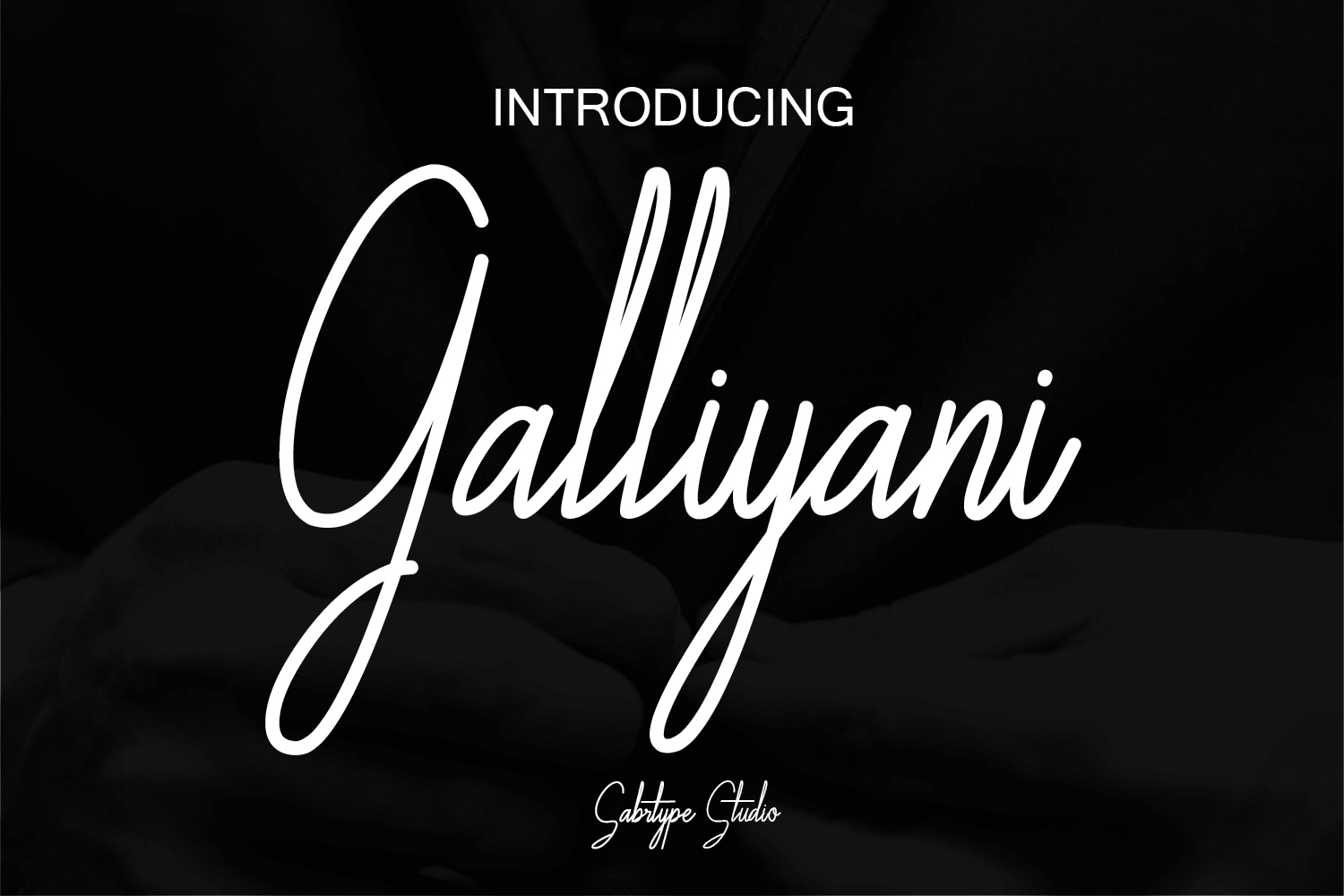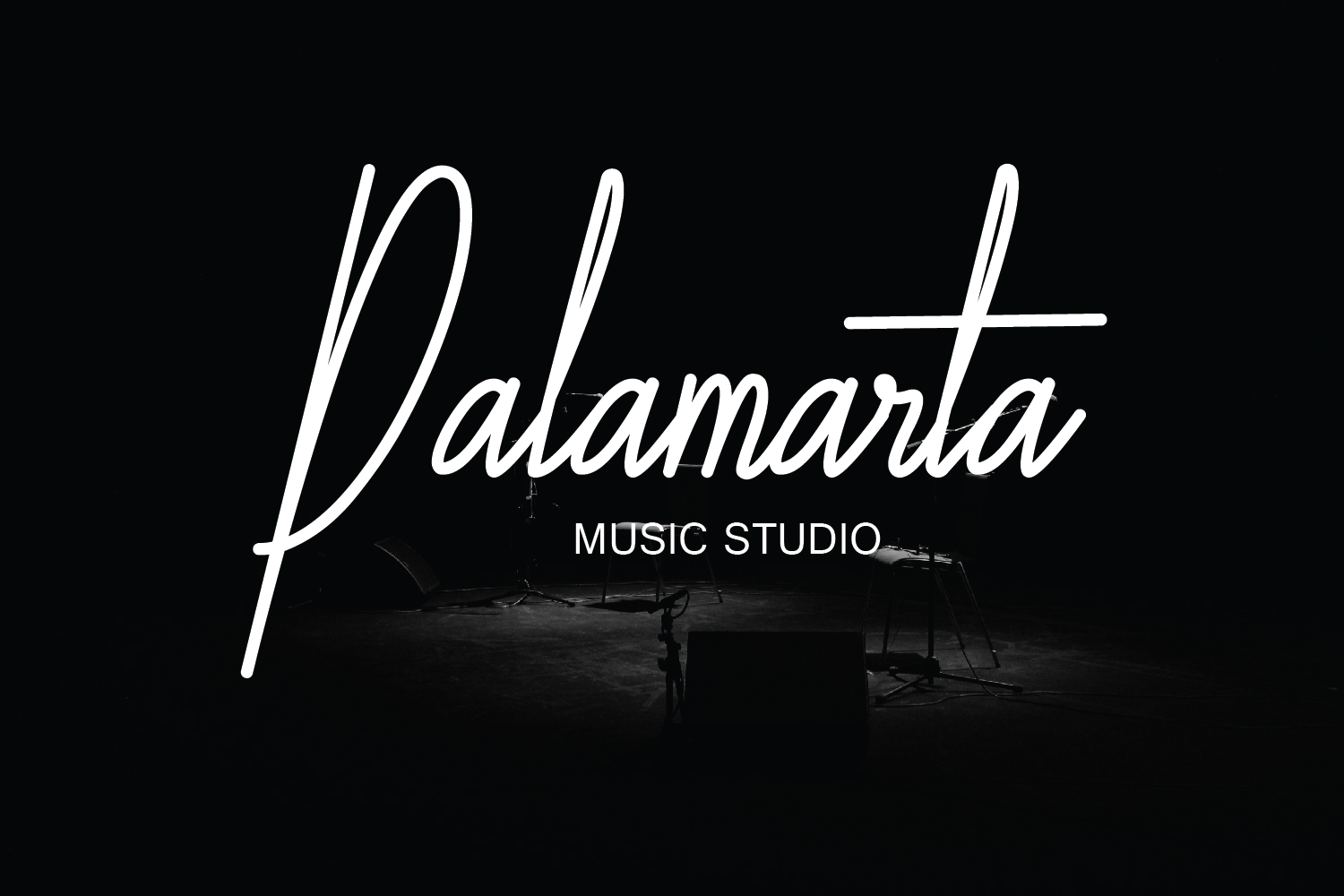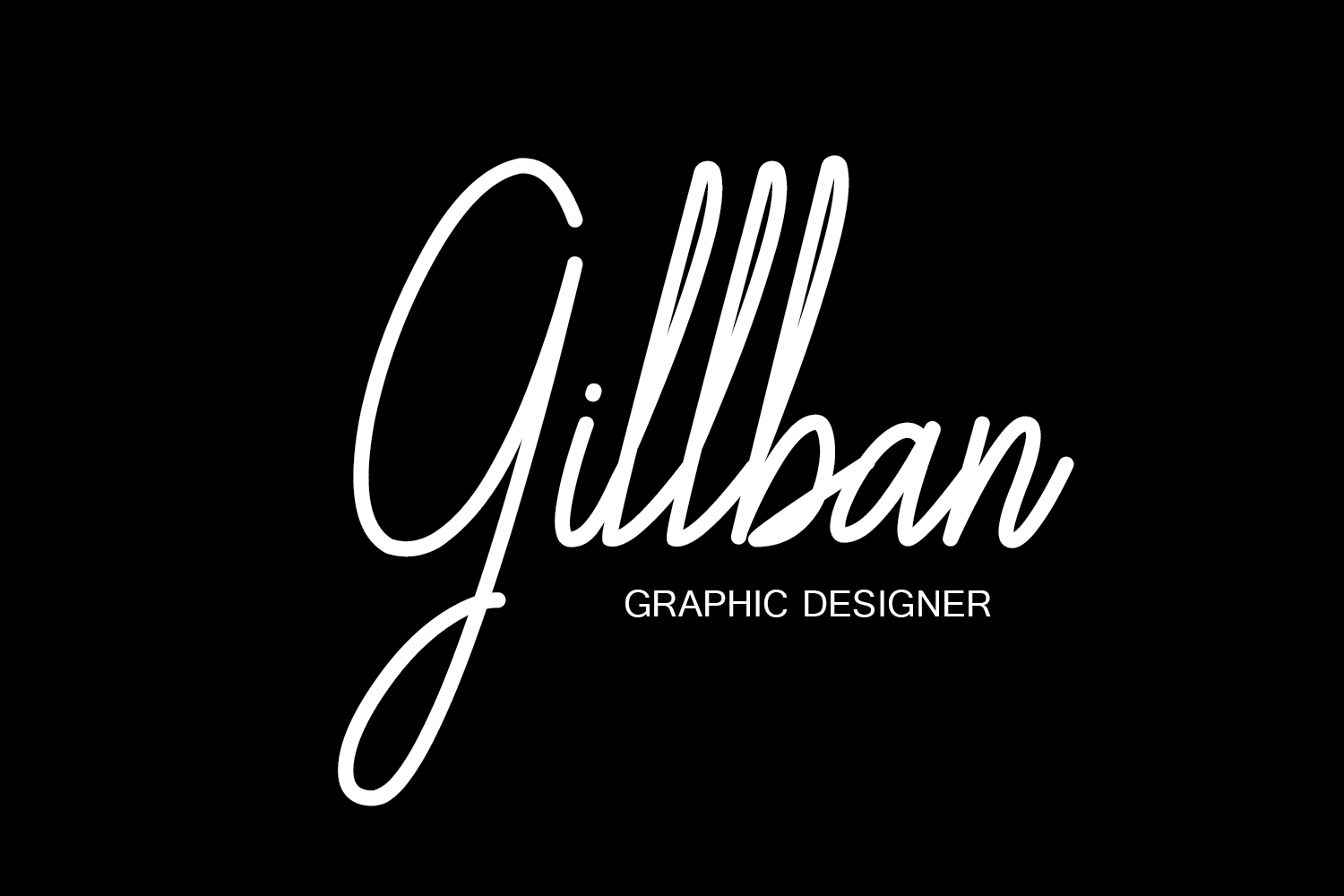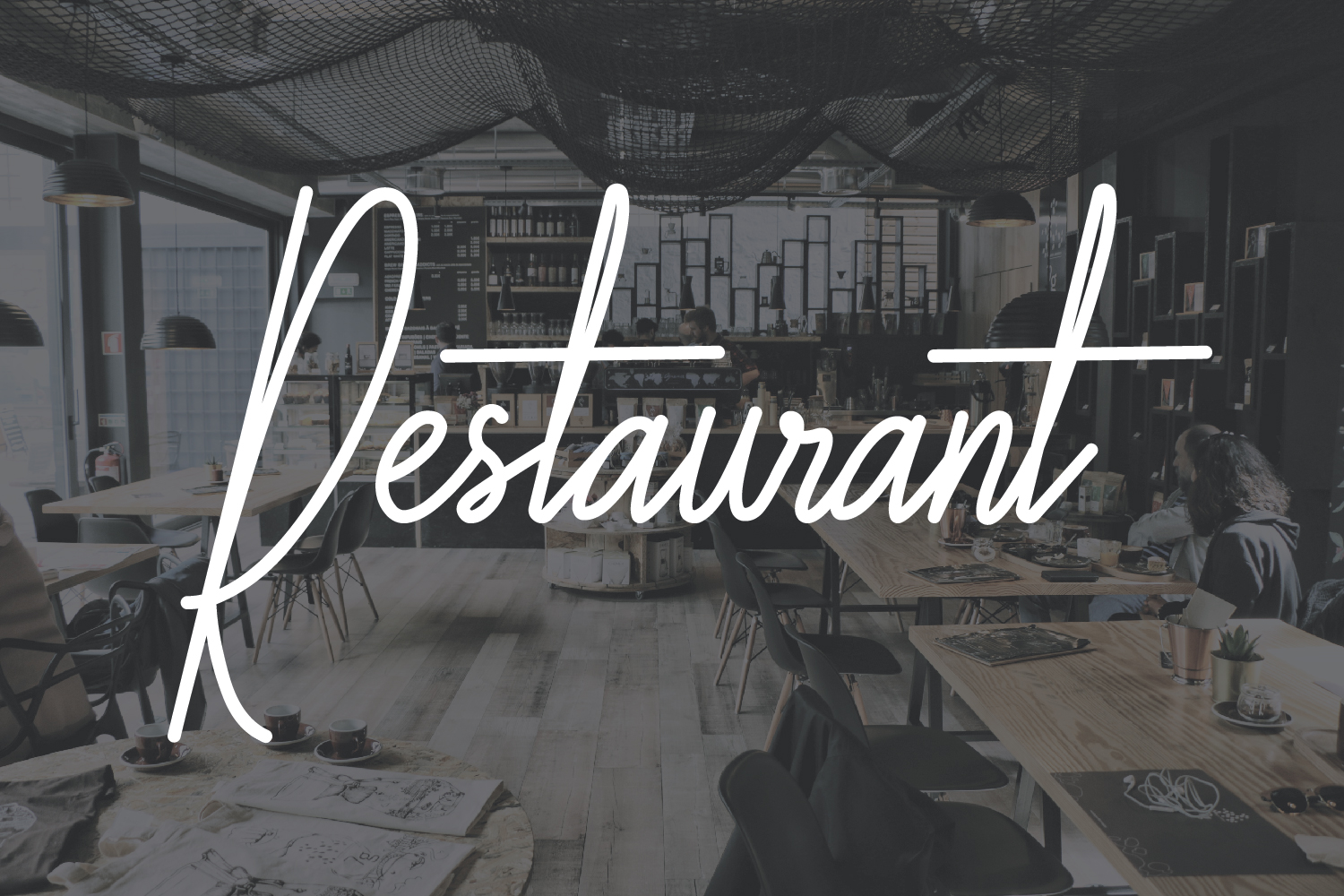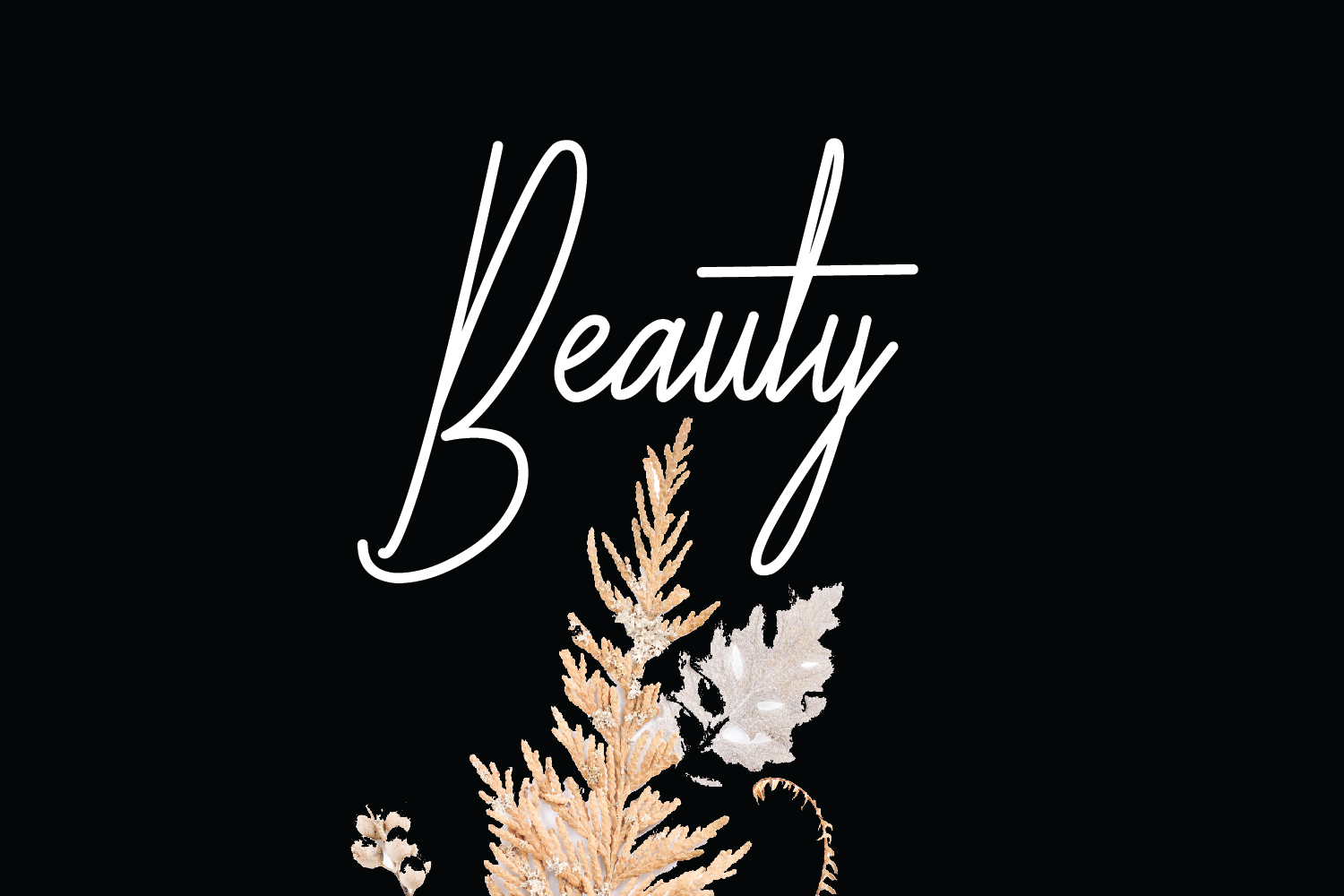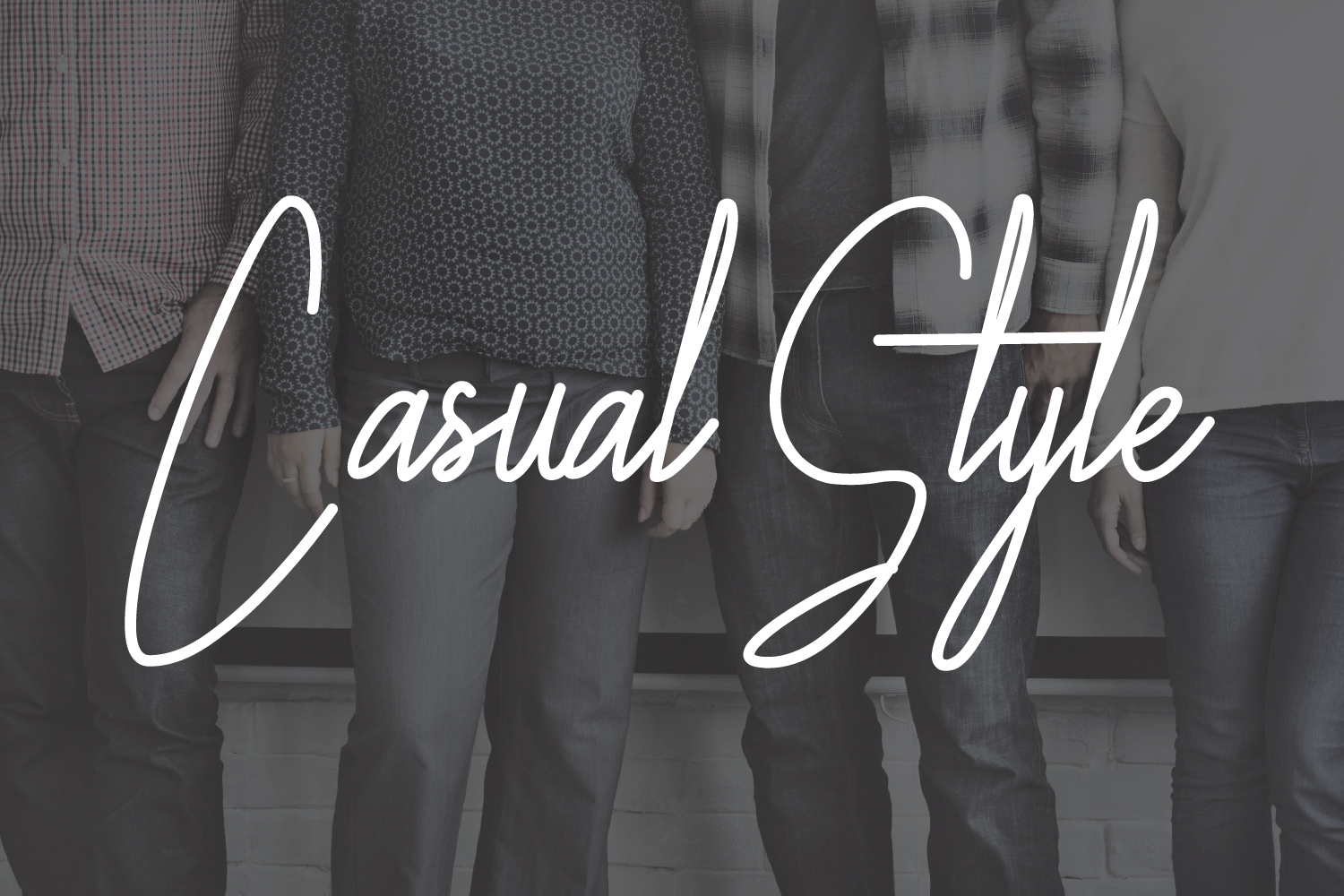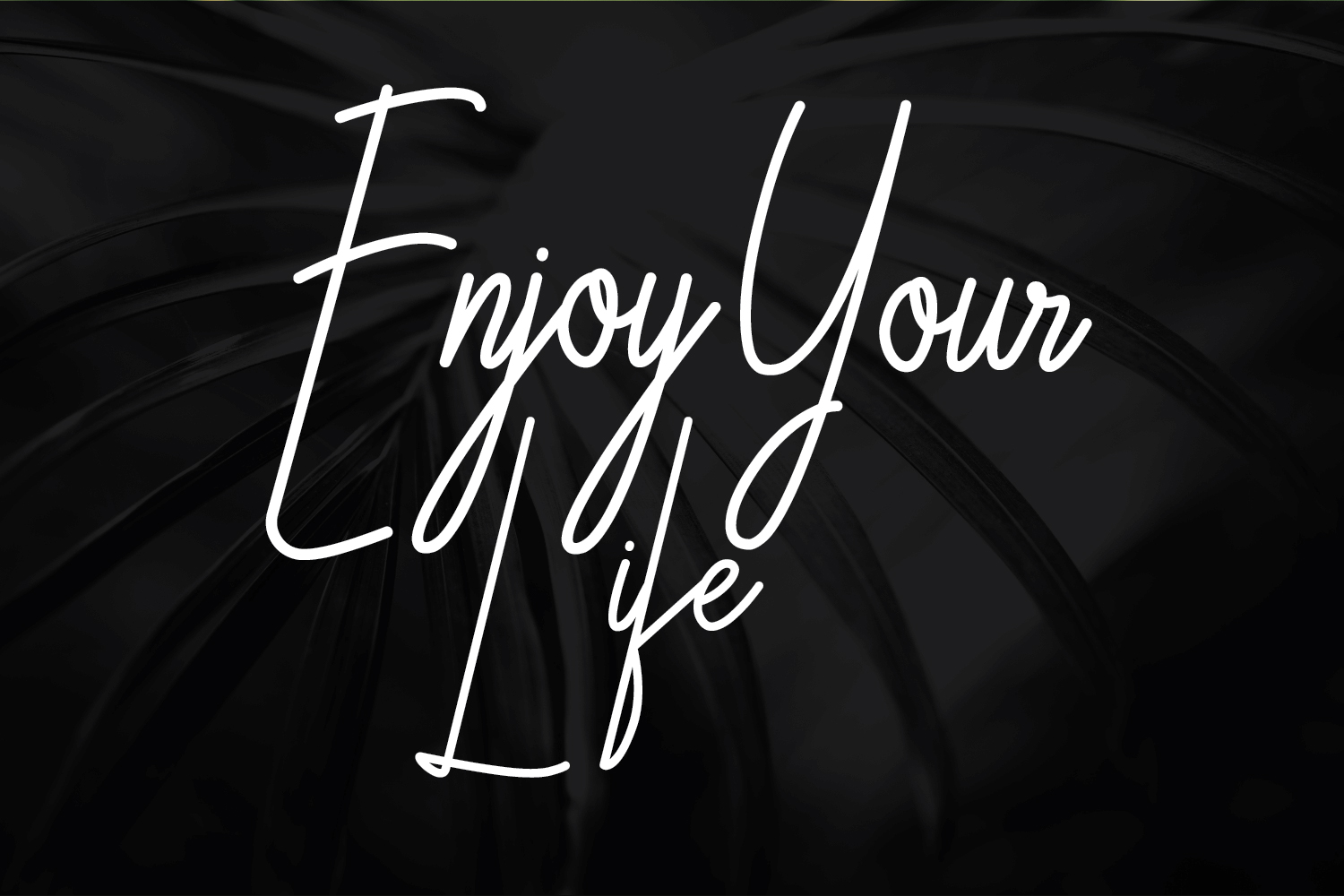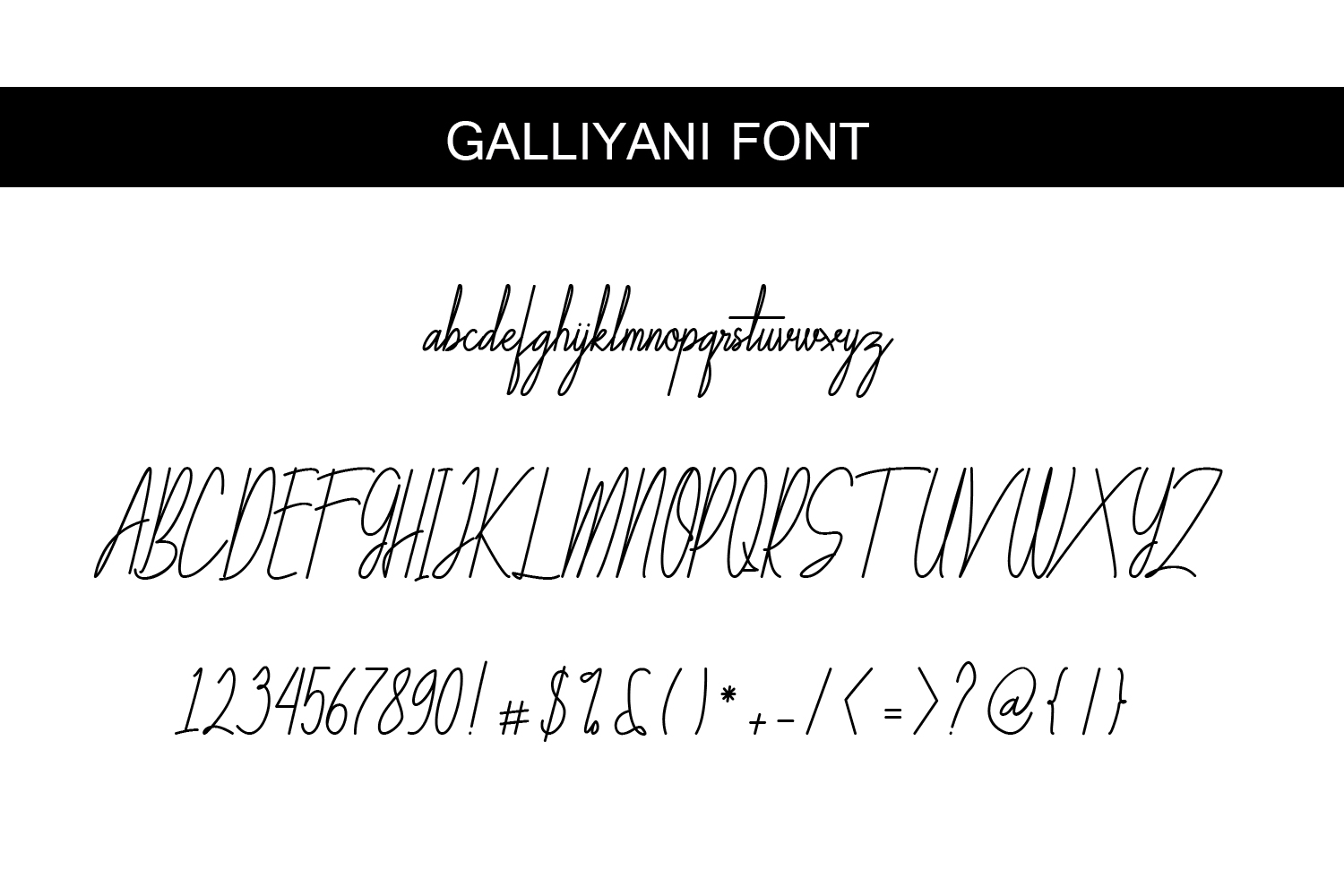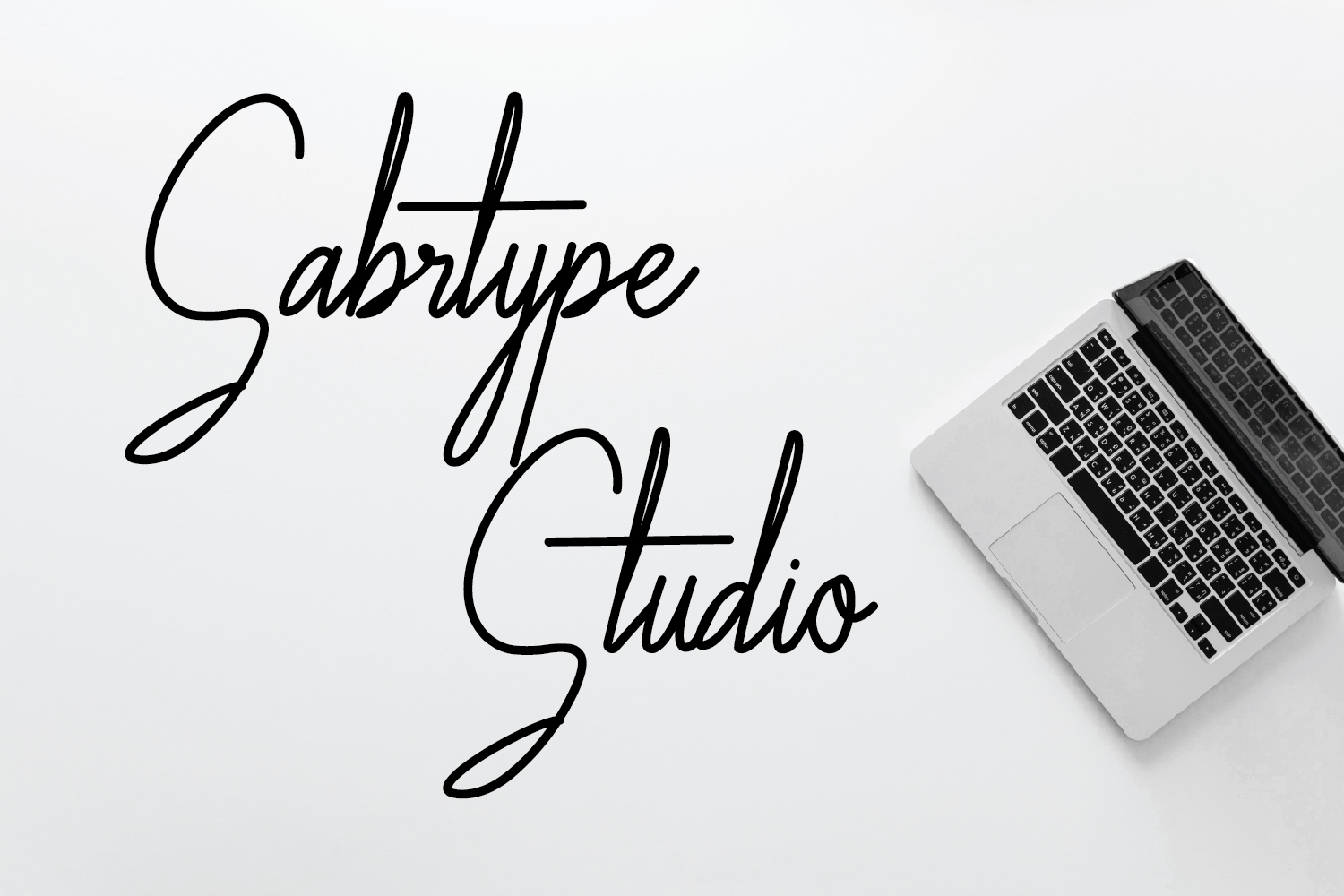
Galliyani Font
Galliyani is a stylish handwritten font, perfect for a wide range of designs that need a stylish yet laid-back vibe. This font is ideal for logotype and signatures, given its monoline feel and approach.